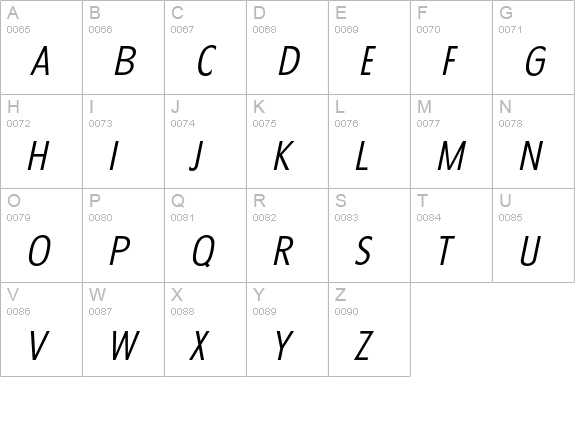
Florida-LightIta Font Details
Florida-LightIta is a stunning and elegant font that exudes sophistication and charm. Its delicate and graceful letterforms make it perfect for a variety of design projects, from wedding invitations to fashion magazines. This font strikes the perfect balance between modern and classic, making it versatile and timeless. What sets Florida-LightIta apart is not only its beauty but also the fact that it is completely free to download. Yes, you read that right - this exquisite font is freely available for download at FontsMarket.com. So go ahead and add a touch of elegance to your designs with Florida-LightIta, without having to spend a dime. Download it today and let your creativity shine!